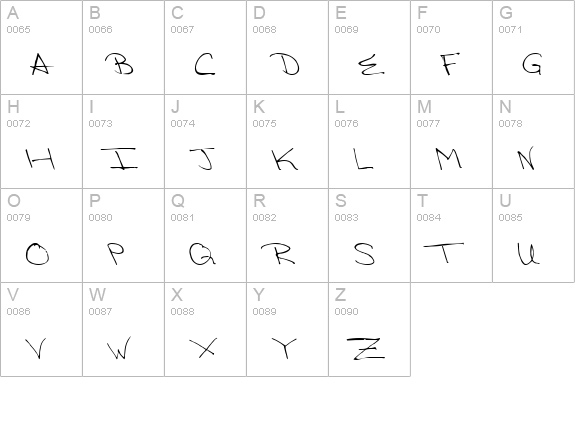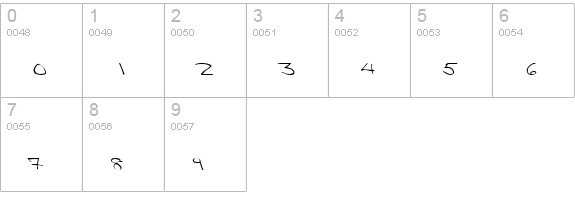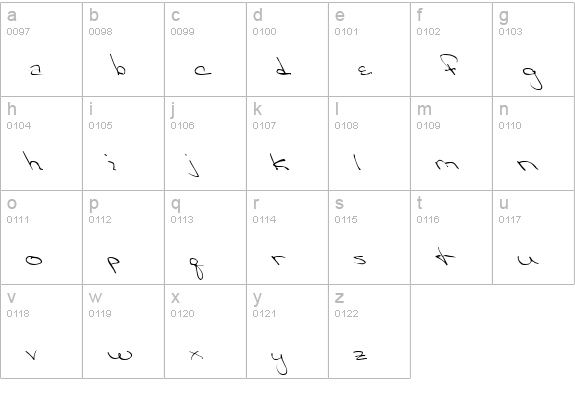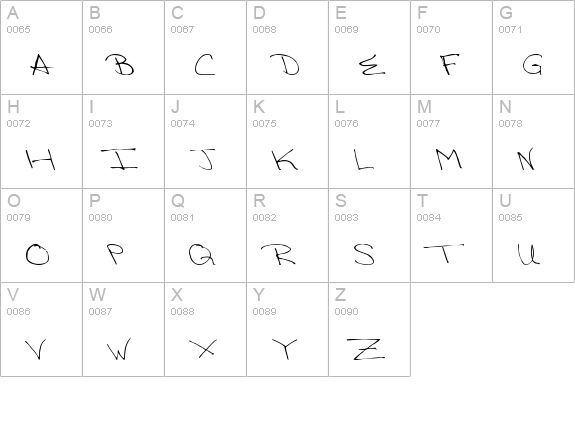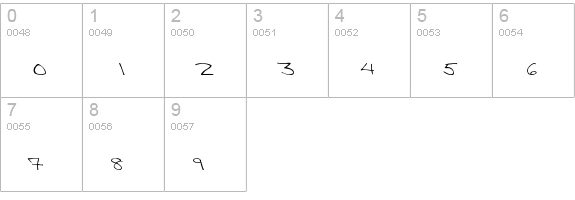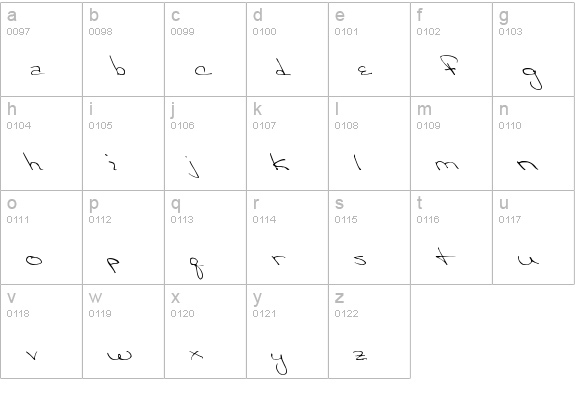
QTHandwriting Regular Font Details
QTHandwriting Regular is the standard, neutral variant in the QTHandwriting typeface family \xE2\x80\x94 well suited to general body text, paragraphs, and standard typographic work.
QTHandwriting Regular is a charming and versatile handwritten font that adds a personal touch to any design project. With its flowing and organic letterforms, this font captures the authenticity and warmth of natural handwriting. Whether you're creating invitations, greeting cards, logos, or social media graphics, QTHandwriting Regular will infuse your designs with a unique and personal feel. One of the best things about QTHandwriting Regular is that it is completely free. You read that right - this font is freely available to download at FontsMarket.com. So not only is it a stunning addition to your font library, but it won't cost you a penny. Now you can enhance your design projects without breaking the bank. The versatility of QTHandwriting Regular is truly remarkable. Its clean and legible style makes it suitable for a wide range of applications. Use it for headlines, body text, or even as an accent font to add a handwritten touch to your designs. This font is perfect for creating a friendly and approachable atmosphere, whether it's for a casual event or a professional branding project. QTHandwriting Regular also comes with a full set of uppercase and lowercase letters, numerals, punctuation marks, and multilingual support. This means that no matter what language you're working with, this font has got you covered. Its extensive character set ensures that you can create visually stunning designs without any limitations. If you're looking for a font that combines elegance, authenticity, and affordability, then look no further than QTHandwriting Regular. With its free availability at FontsMarket.com, you have the opportunity to elevate your design projects without spending a dime. So why wait? Download QTHandwriting Regular today and let your creativity flow freely.